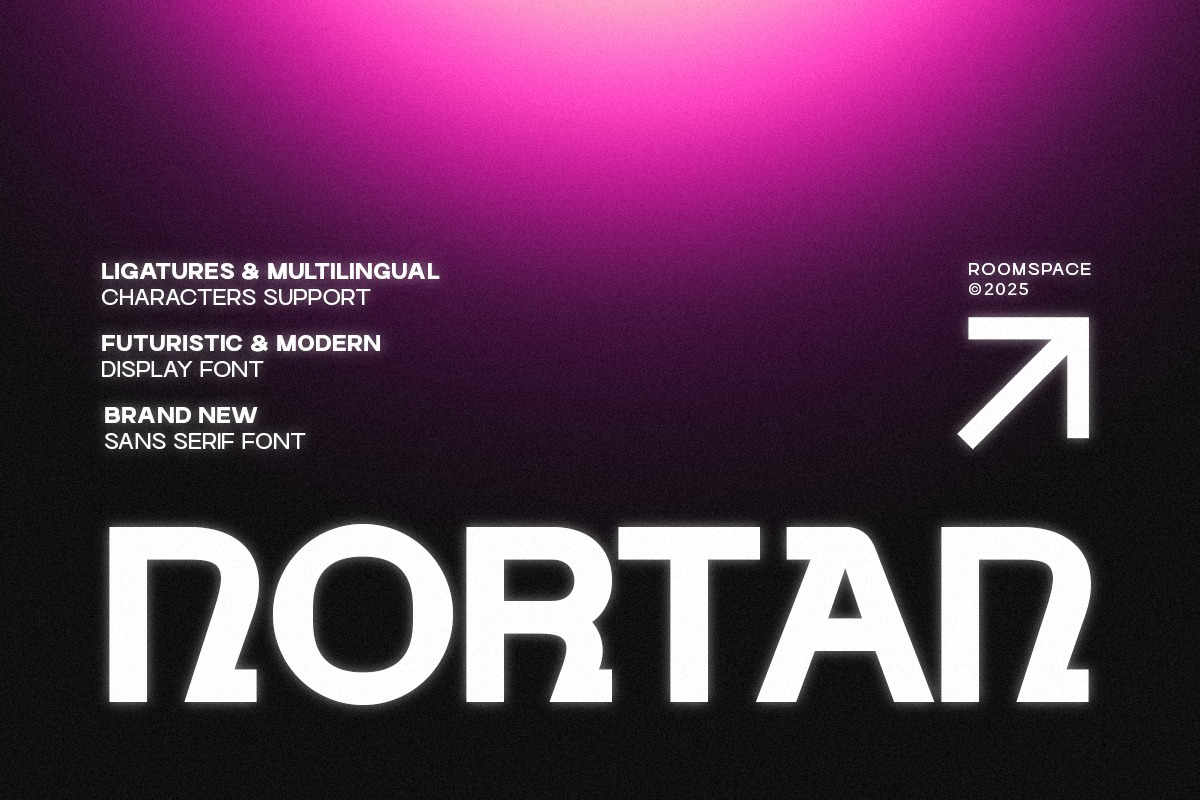
Nortan Font
Nortan Font is a futuristic modern sans-serif display font designed for high-tech branding and digital-forward layouts. Featuring unique letterforms, clean geometric flow, and contemporary ligatures, Nortan brings a bold, innovative personality to logos, UI/UX design, editorial headlines, and sci-fi themed visuals. Perfect for tech companies, gaming brands, startup identities, and modern advertising campaigns.